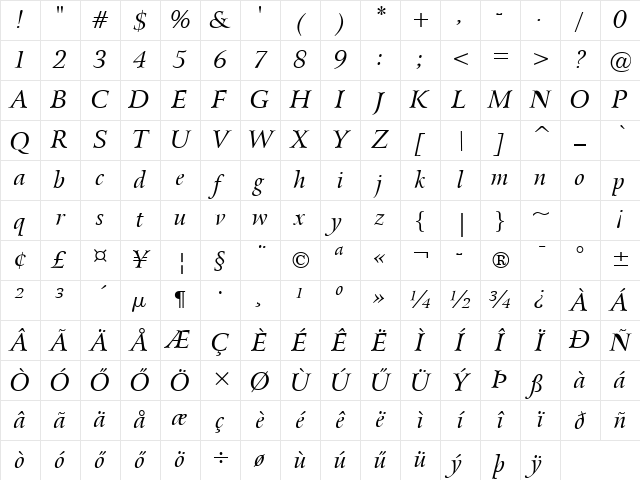
Huni_BitamrusIt Regular
Design Context for Huni_BitamrusIt
Huni_BitamrusIt is a composed and adaptable typeface that performs quietly and consistently across a wide range of design contexts.